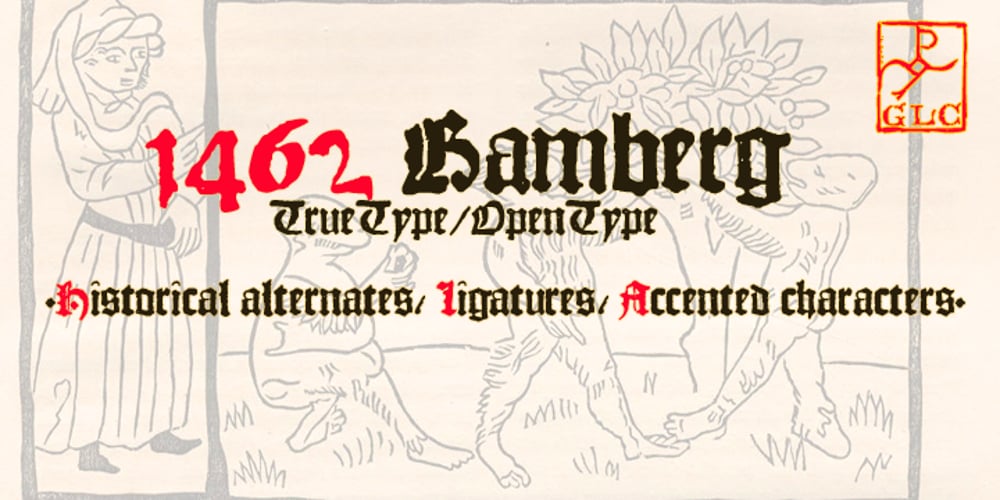
1462 Bamberg Font Family was designed by published by GLC. 1462 Bamberg contains 1 styles and family package options. Font designed from that used in Bamberg by Albrecht Pfister, in early years of printing, exactly for a book titled “Ackermann Von Böhmen” writen in old German by Johannes Von Tepl, and decorated by a lot of splendid colored carved woods. This font include “long s”, naturelly, as typically medieval, but any abbreviated characters, and, curiously no german “ß”, no more than “W”. (The only one I did found where a hand drawn one.) In addition, the “k” have not a German gothic form. Added, the accented characters, no longer existing on this time, and capitals when was a lack. A render sheet, in the font file, makes all easy to identify on a keyboard. This font is used as variously as web-site titles, posters and fliers design, editing ancient texts… This font supports as easily enlargement as small size, remaining readable, original and beautiful, especially in capitals.